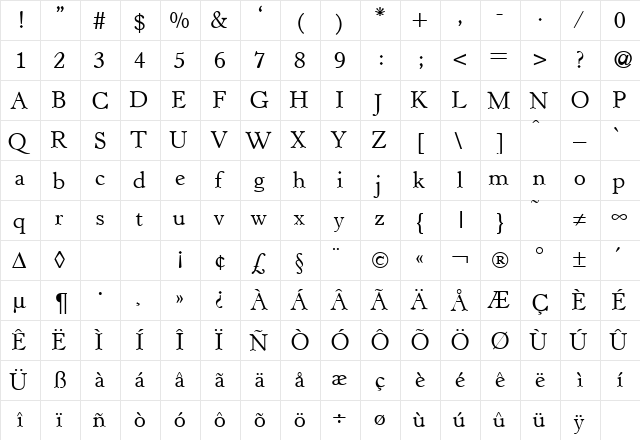
HopperOldStyle Regular
Design Context for HopperOldStyle Typeface
HopperOldStyle brings classic typographic sensibility to the table — its serifs and measured letterforms reflect centuries of print heritage.
Pro Tip: Set HopperOldStyle with slightly loose tracking in headlines to let each letterform's detail read clearly at display sizes.